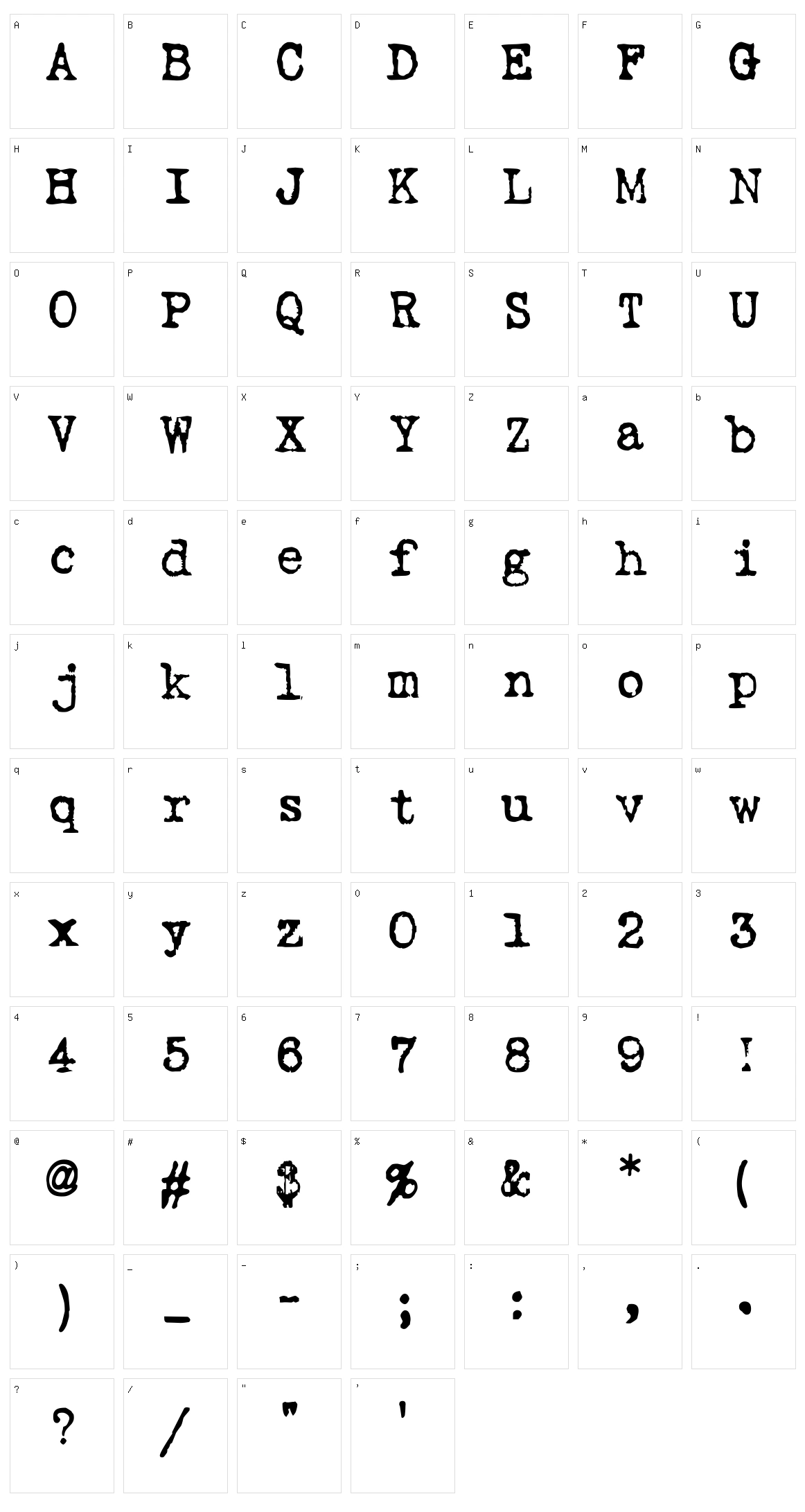
a Dixie's Delights Font.
hope you enjoy it. Keep an eye out for the cupids and
hearts and heart-shaped leaves stashed here and about.
LOVE LETTER TYPEWRITER was created from the scanned pages
of love letters written from my grandfather to my
grandmother in the late 1930s and early 1940s (she replied
in blue ink). There were no samples of a few of the
characters, so these were taken from fresh
imprints of other manual typewriters of similar vintage.